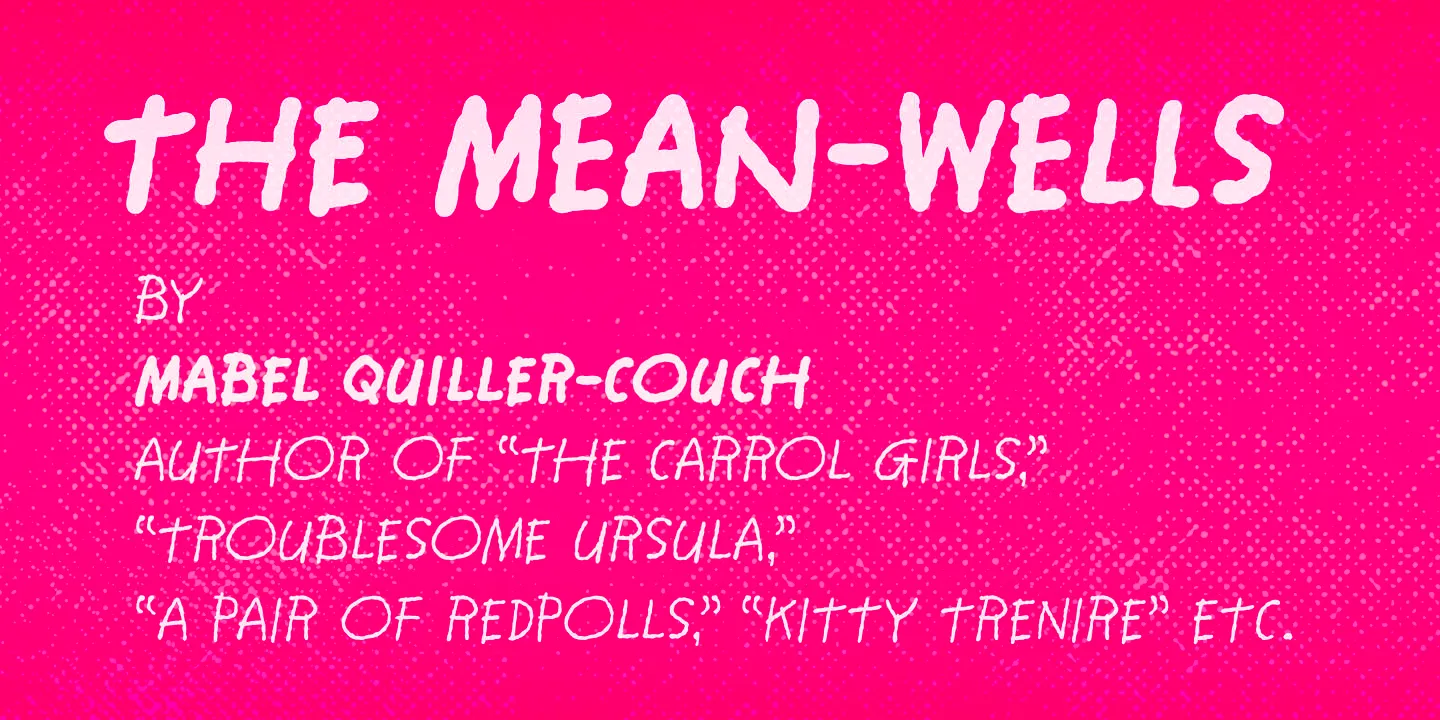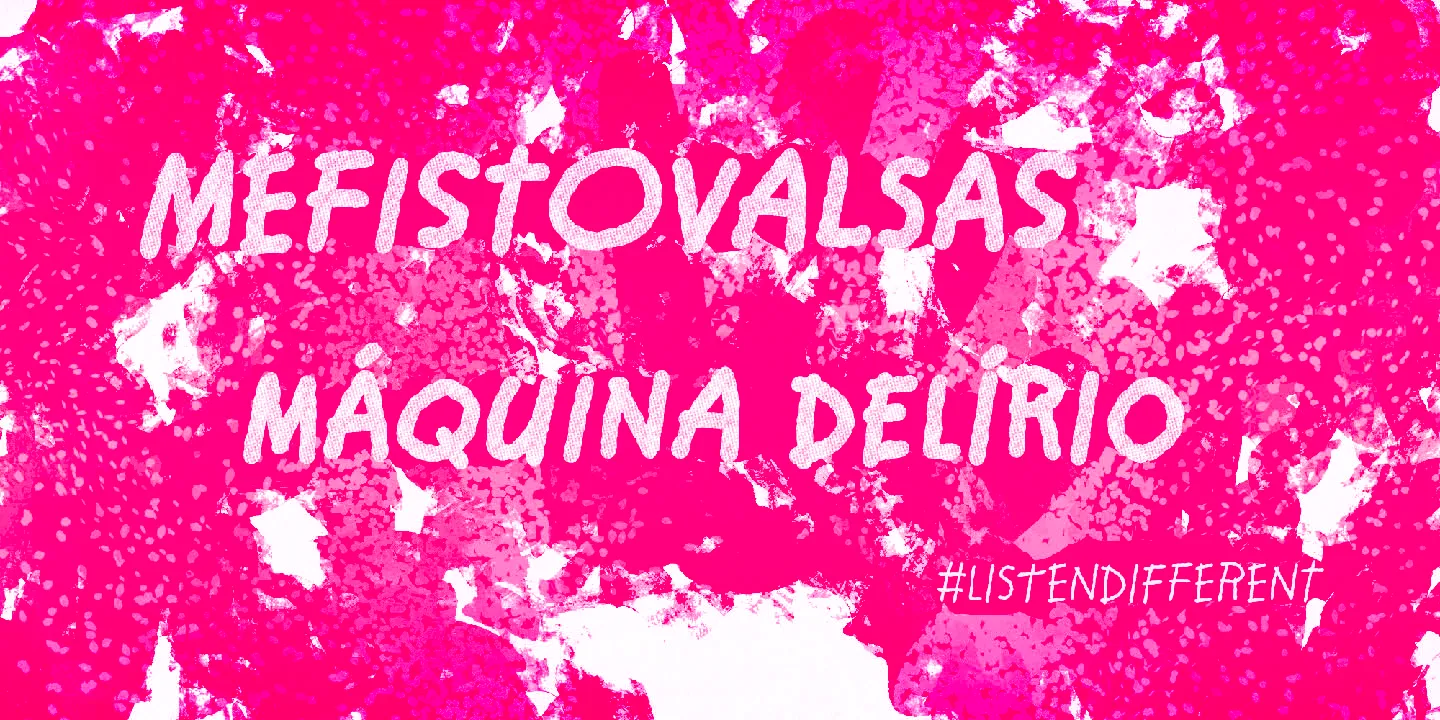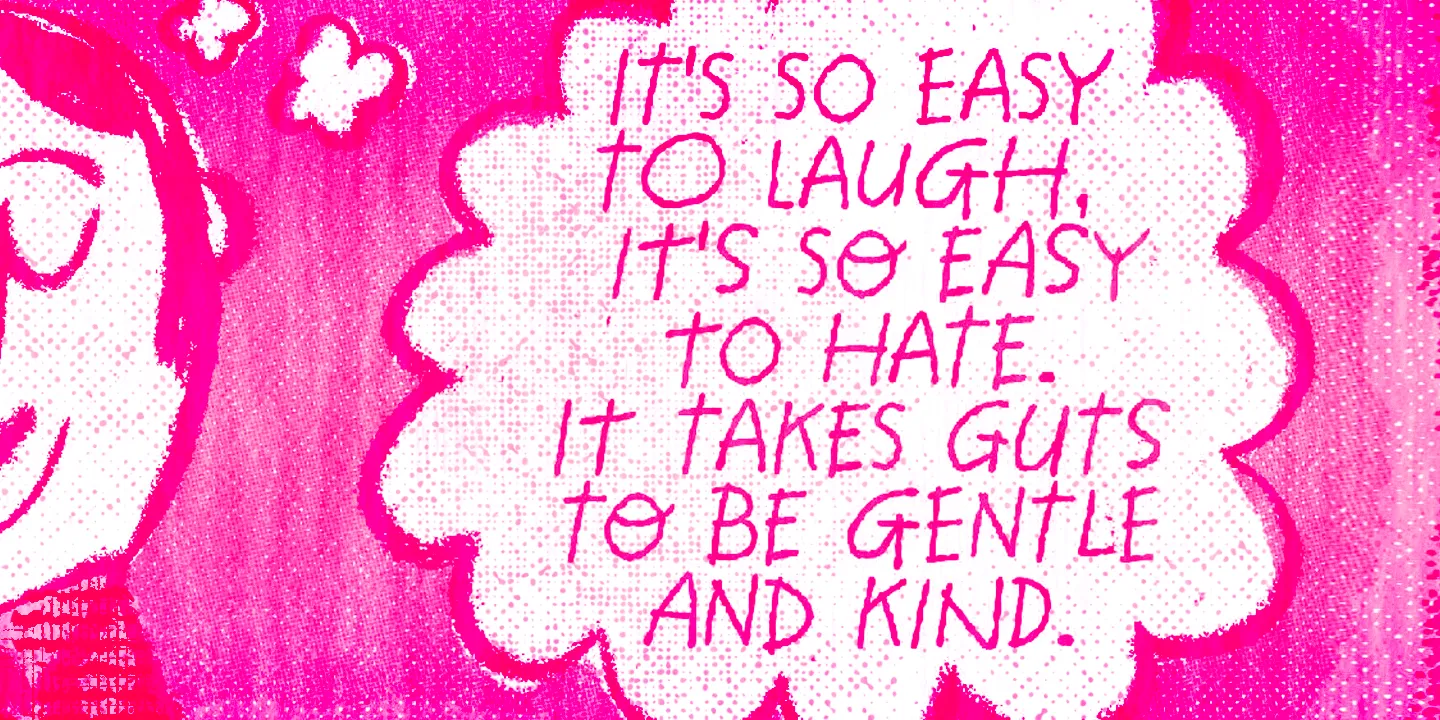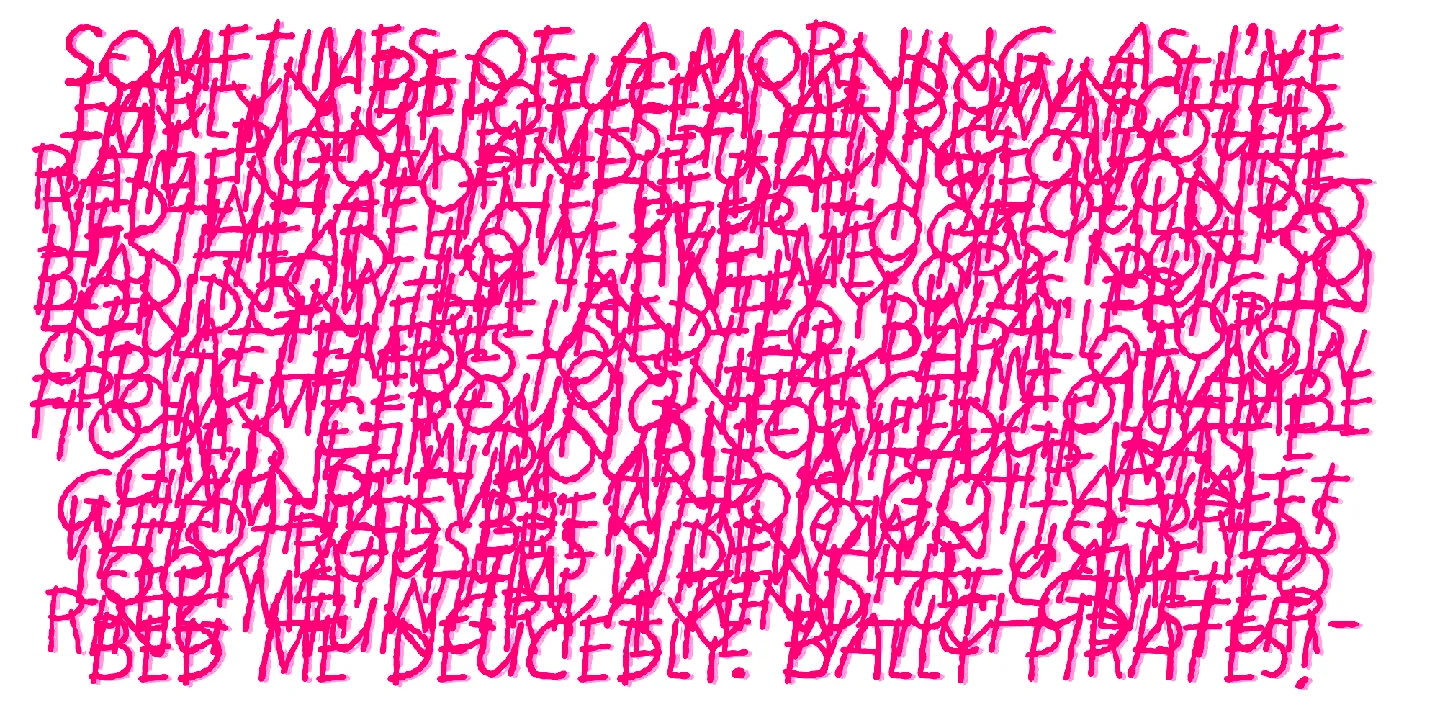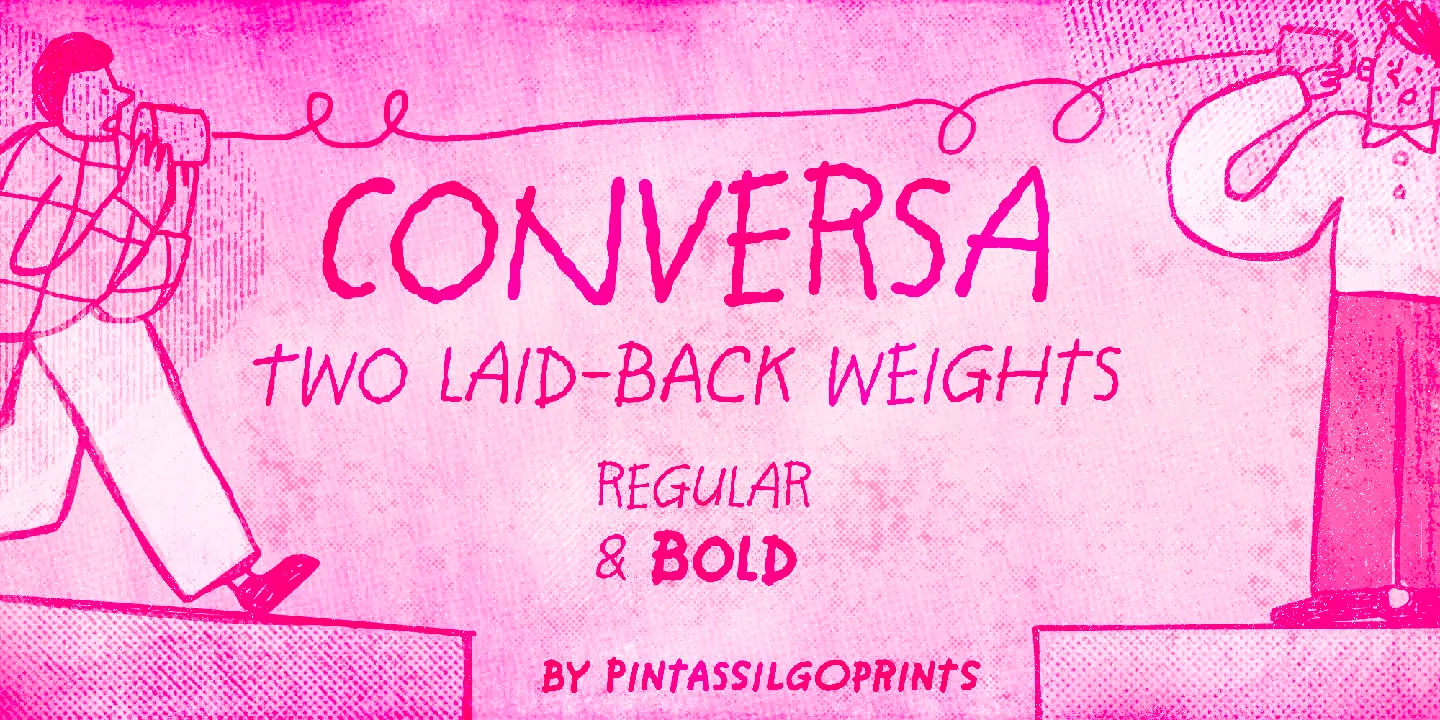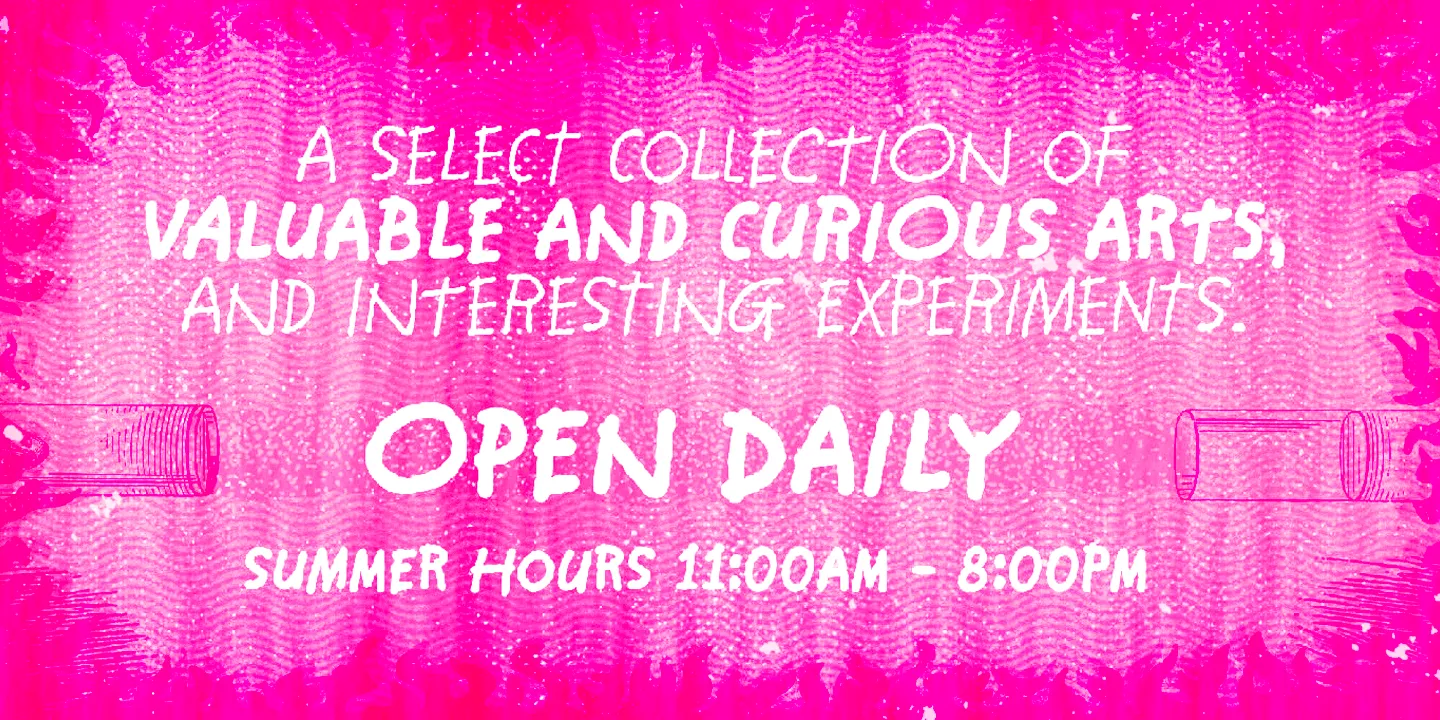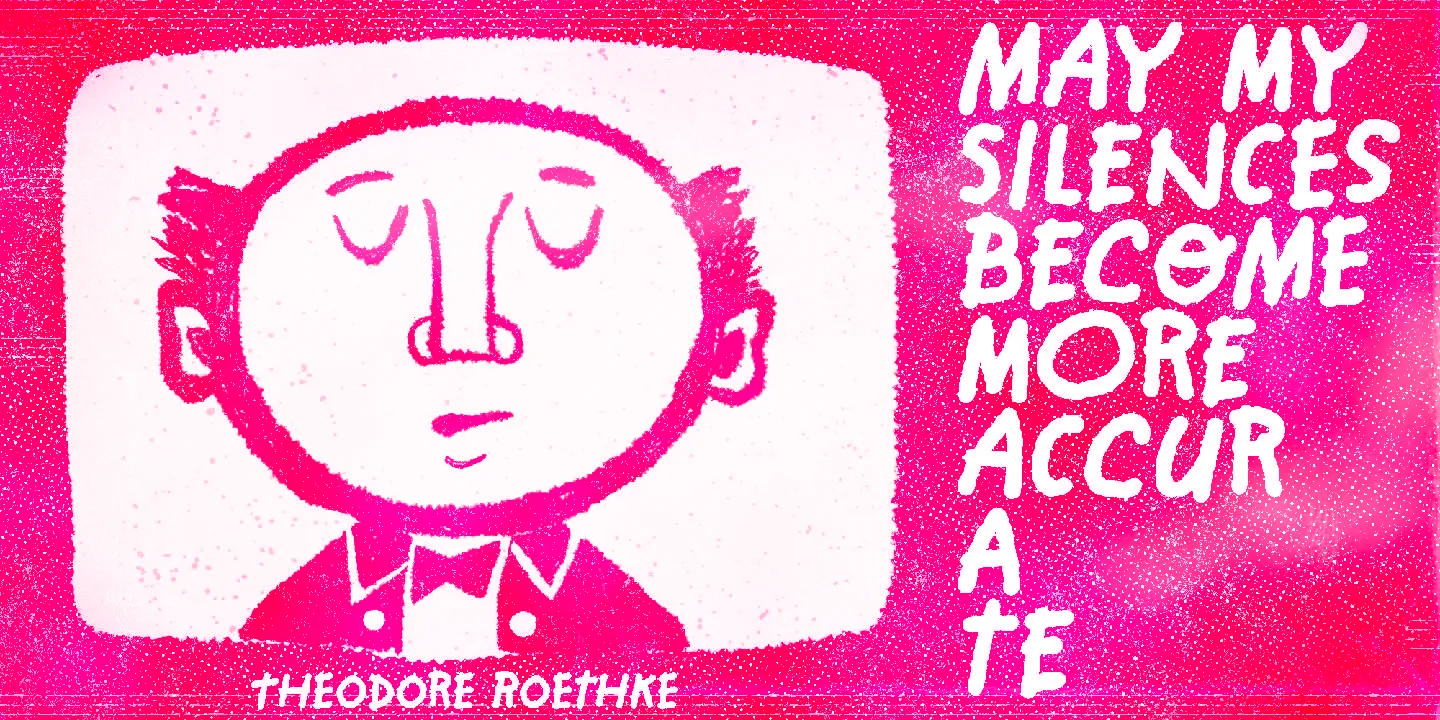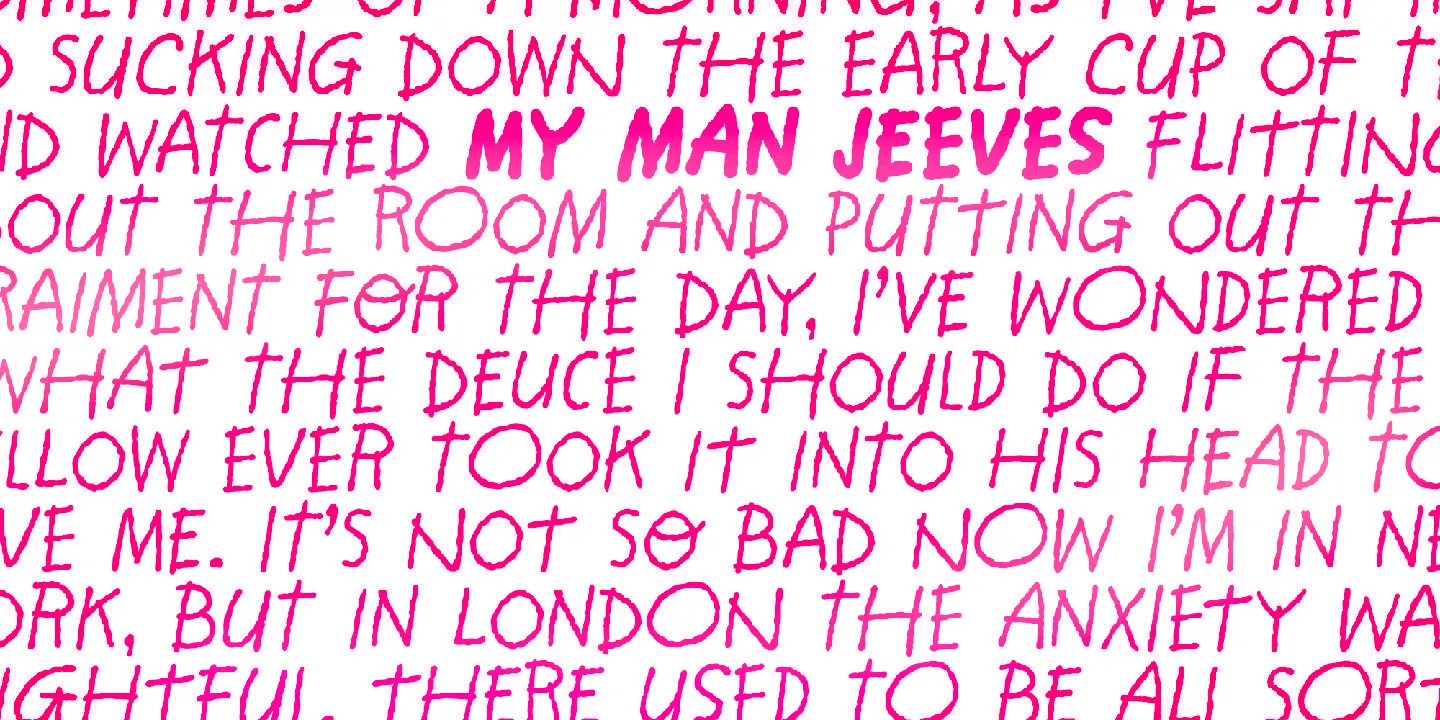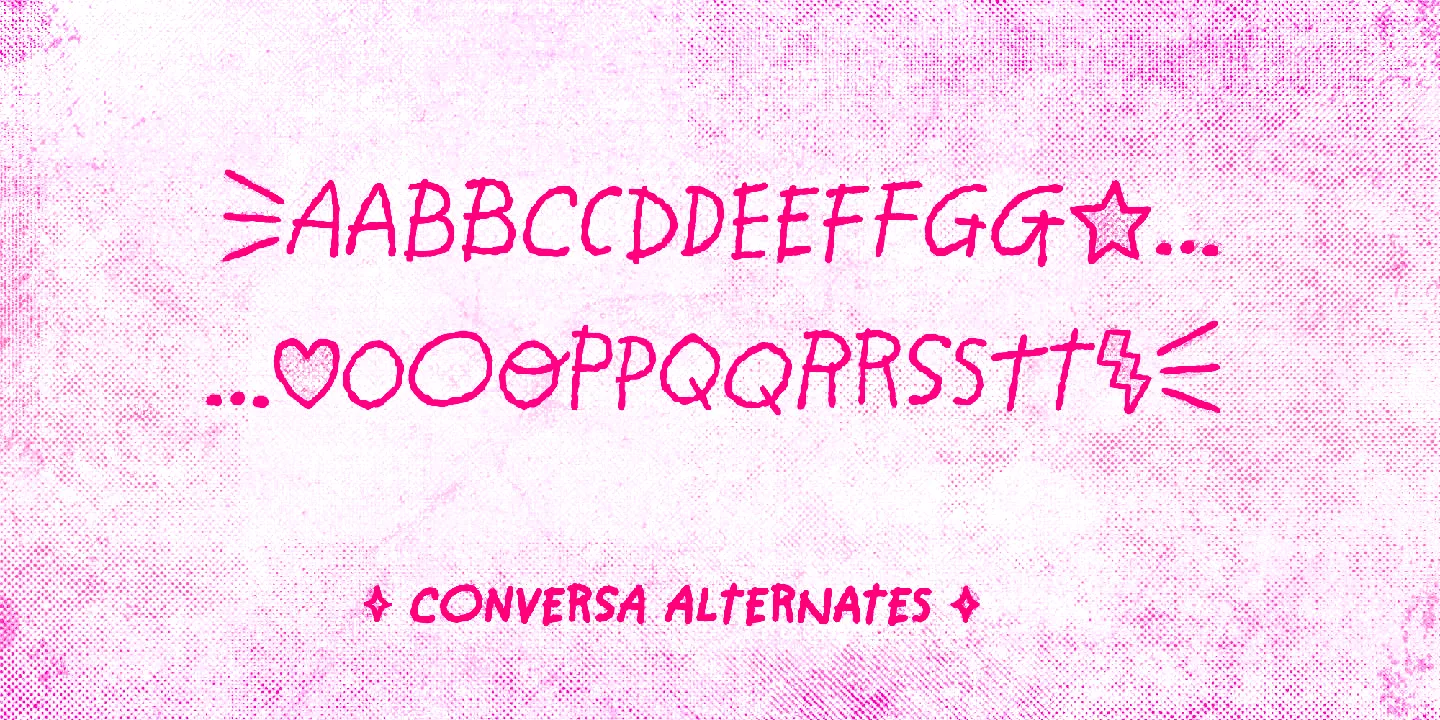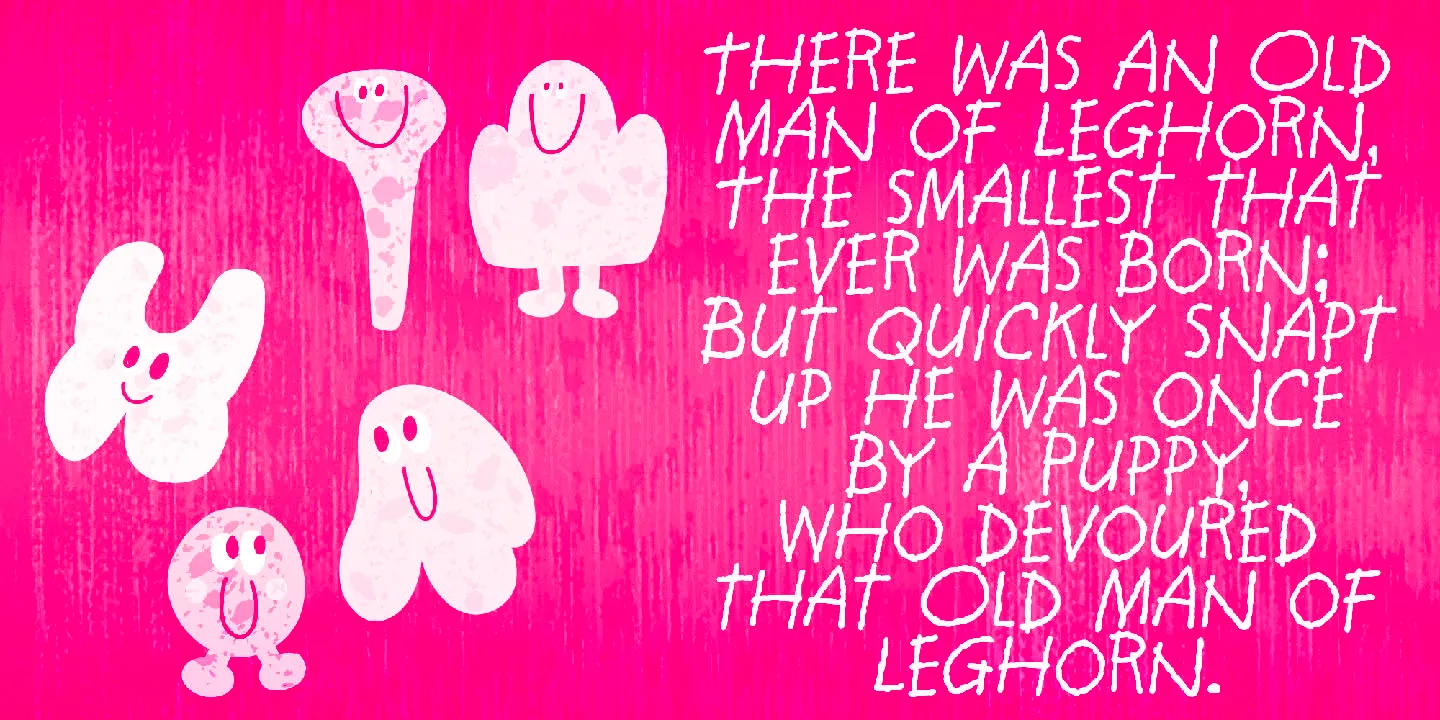
Conversa Font Family
Conversa
Conversa is a casually hand-lettered all-caps font family. It’s available in two weights with alternate glyphs for added character. There are also a few ornaments, which can add a little twist here and there. Conversa is a natural fit for journals, captions, comics, or branding that wants to have a playful or childlike tone.
• Fractions
• Ordinal Numerals
• Ornaments
• Superscript